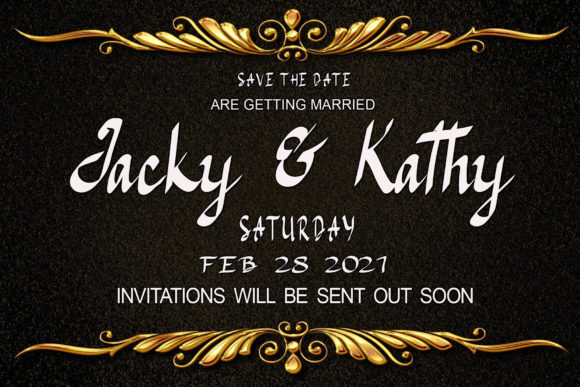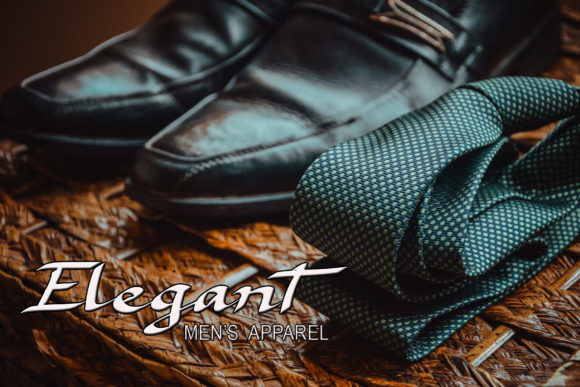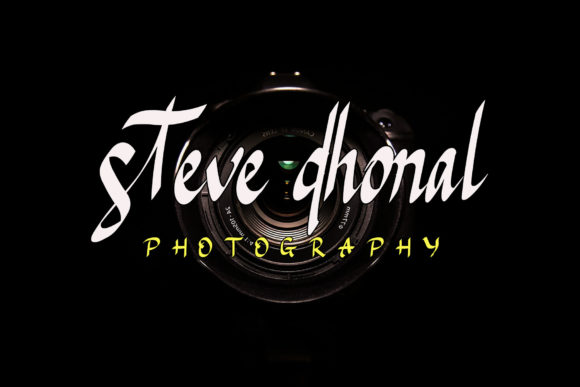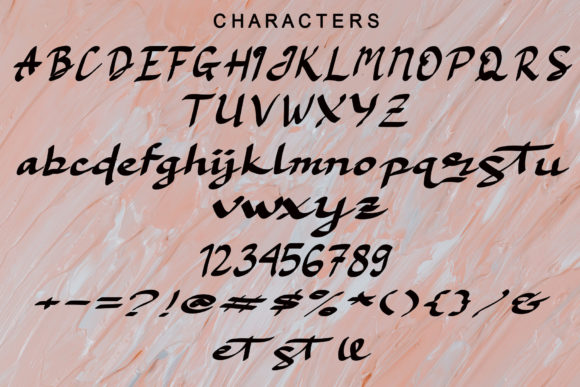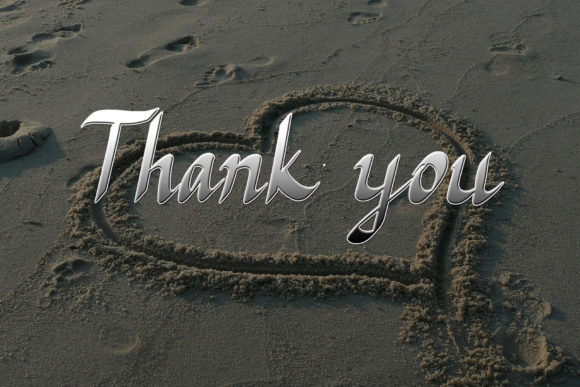
Introducing Dealova Font: The Epitome of Elegance and Charm
In the vast world of typography, few fonts manage to strike a balance between charm and elegance. However, Dealova font is one such exquisite typeface that embodies these qualities, making it a perfect choice for designs that demand a touch of sophistication and personalization. Whether you’re a designer looking for the perfect font for a client’s wedding invitation or a crafter seeking an elegant style for your handmade cards, Dealova feels equally charming and elegant, enhancing any design with its unique flair.
The Versatility of Dealova Font
One of the standout features of Dealova font is its versatility. This beautiful typeface looks lovely on a variety of materials and projects, including:
- Wedding Invitations: Add a touch of romance and sophistication to wedding invites with Dealova’s elegant strokes.
- Thank You Cards: Express gratitude in style with a font that exudes warmth and class.
- Quotes: Highlight meaningful quotes with a font that is both eye-catching and refined.
- Greeting Cards: From birthday wishes to holiday greetings, Dealova brings a level of elegance to any occasion.
- Logos: For businesses that want to convey a sense of luxury or bespoke service, Dealova can be a fantastic choice.
- Business Cards: Stand out in the professional world with a business card that features a sophisticated and elegant font.
Why Designers and Crafters Love Dealova
Designers and crafters often seek fonts that not only look beautiful but also evoke a certain emotion or aesthetic. Dealova font checks all these boxes and more. Here are a few reasons why it has become a favorite among creative professionals:
- Ease of Use: Despite its elegant appearance, Dealova is surprisingly easy to read and use in various design projects.
- Customization: The font’s unique style allows for a high level of customization, enabling designers to tailor their projects to their client’s specific needs.
- Emotional Connection: Dealova’s charming and elegant nature helps create an emotional connection with the audience, making designs more impactful.
Tips for Using Dealova Font Effectively
To make the most out of Dealova font, consider the following tips:
- Pair with Complementary Fonts: Dealova pairs well with clean, sans-serif fonts for a balanced look.
- Play with Sizes: Experiment with different sizes to emphasize certain parts of your design.
- Adjust Line Spacing: Ensure readability by adjusting line spacing according to your design’s requirements.
Dealova font is a beautiful addition to any designer’s or crafter’s toolkit. Its unique blend of charm and elegance makes it suitable for a wide range of projects, from wedding invitations and greeting cards to logos and business cards. With its ease of use, customization capabilities, and ability to create an emotional connection with the audience, Dealova is sure to elevate your designs to the next level. So, if you’re looking for a font that brings a touch of sophistication and personalization to your work, look no further than Dealova.
Embrace the elegance and charm of Dealova font in your next project and discover the difference it can make.